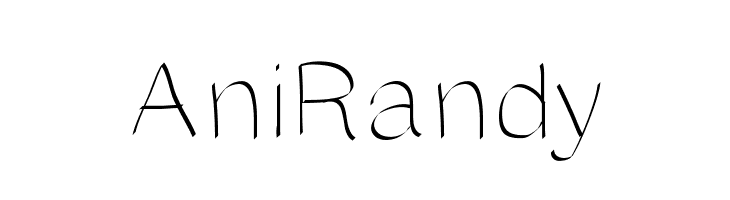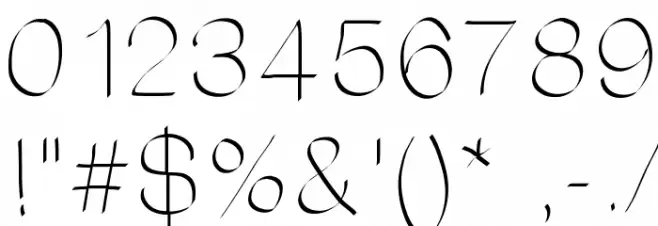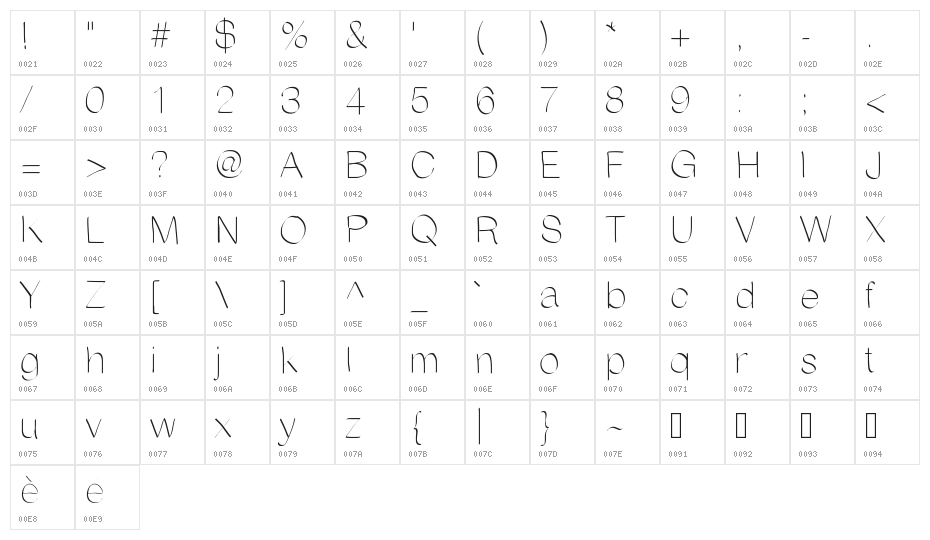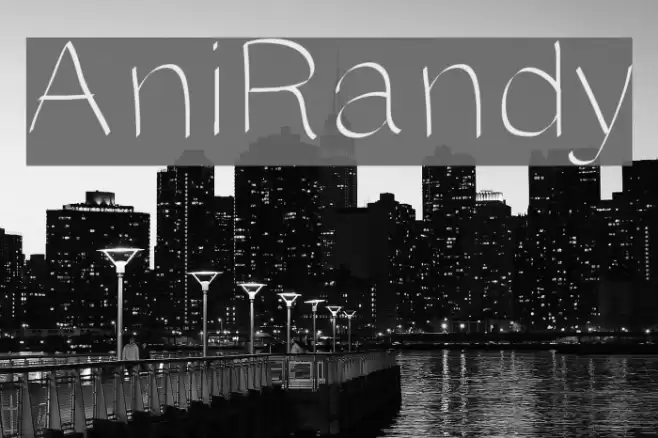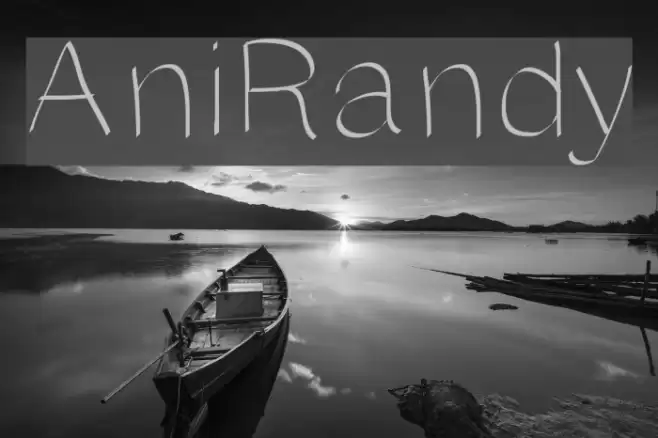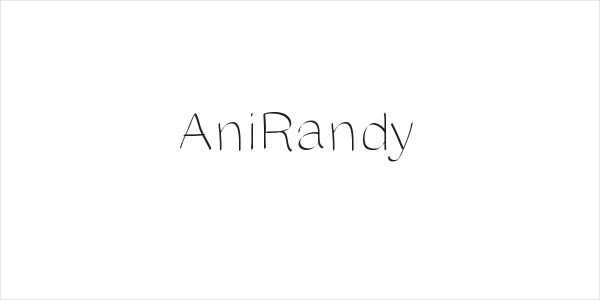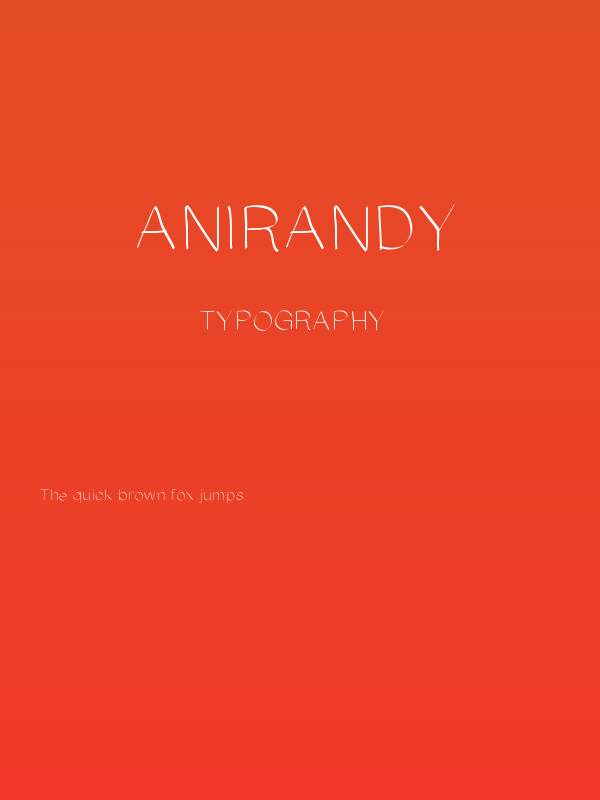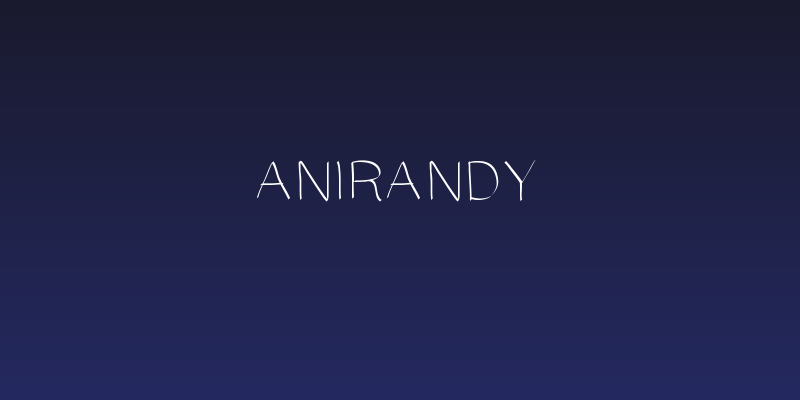
AniRandy Font
AniRandy Description
This font exhibits a modern and sleek design with a handwritten touch. The characters are slightly slanted, giving a dynamic and fluid appearance. The strokes are thin and consistent, with a subtle variation that adds a sense of elegance and sophistication. The uppercase letters are tall and narrow, while the lowercase letters maintain a balanced proportion. The numerals are clear and distinct, matching the overall style of the alphabet. Special characters are well-integrated, maintaining the font's cohesive look. This font's unique style makes it versatile for various design applications.
Use CaseLogos, Invitations, Editorial design
Proposed ProjectsIdeal for branding, invitations, greeting cards, and editorial design.